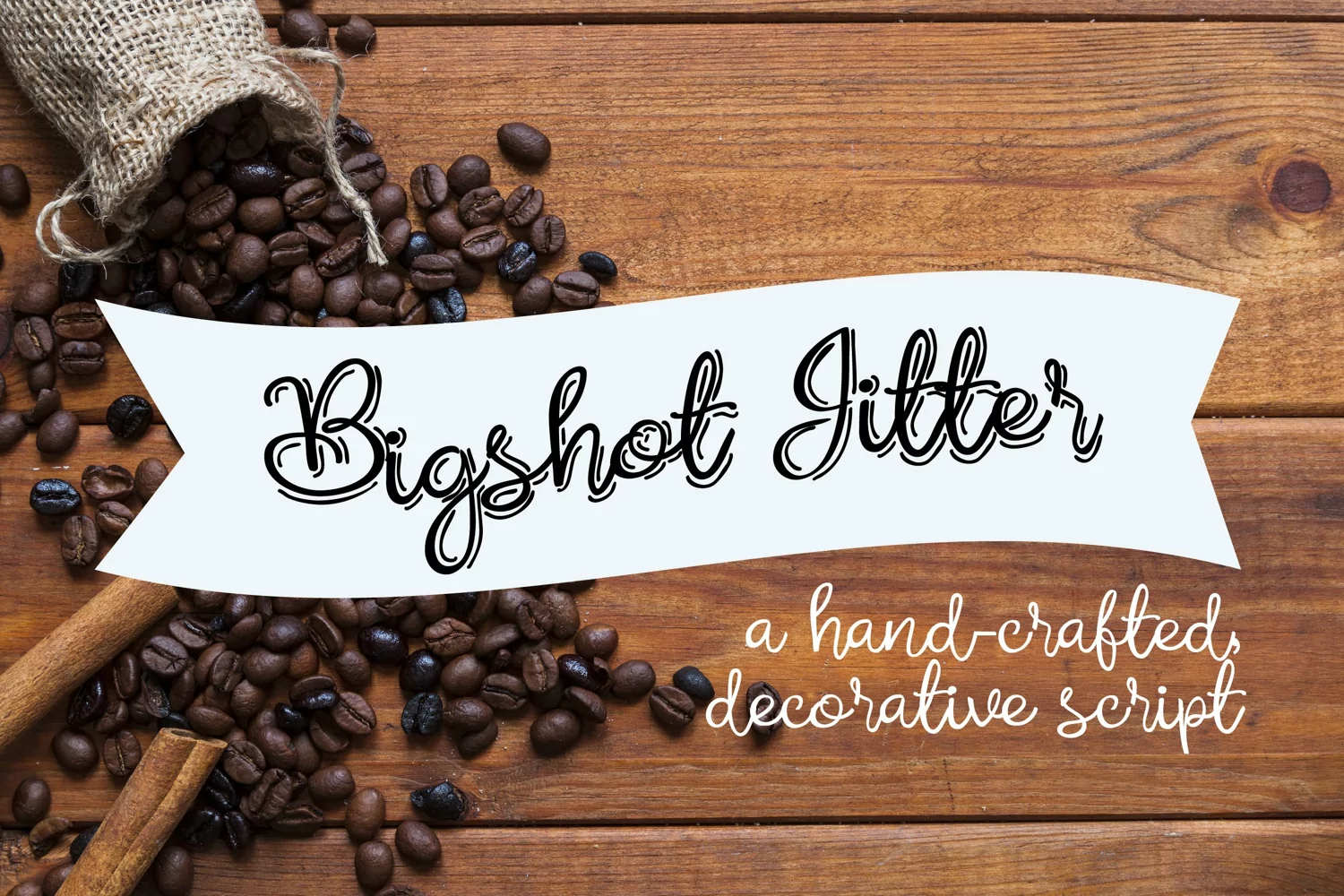
PN Bigshot
This hand-written font is a casual cursive with a bouncy baseline. Three weights, a stenciled version and two highlighted versions included.